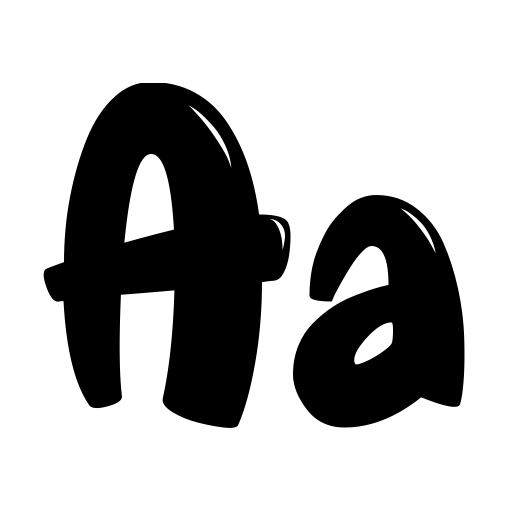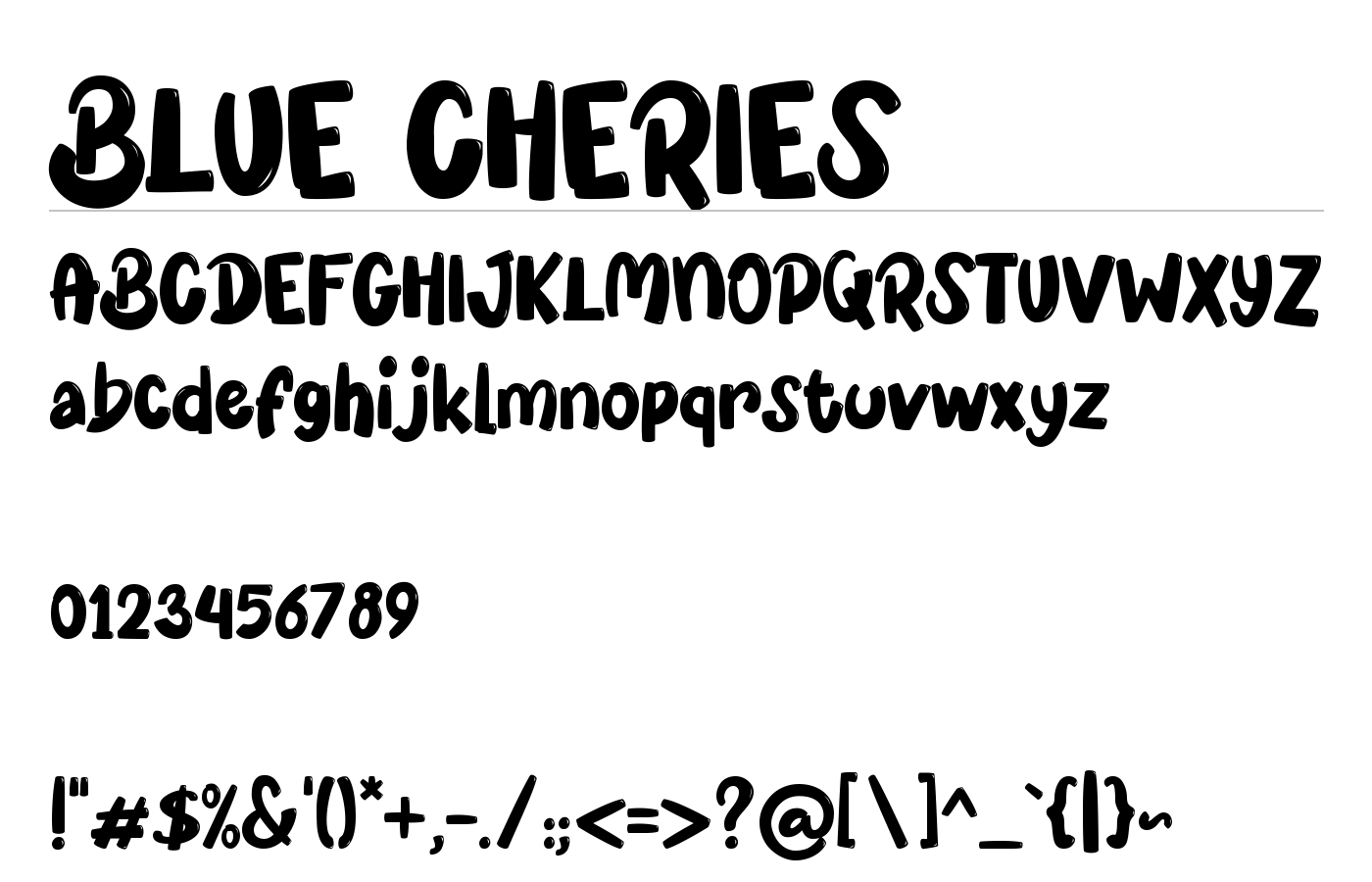
BLUE CHERIES is a playful and bold handwritten-style sans serif font with a chunky weight and rounded edges that give it a friendly, casual feel. Its uneven, whimsical letterforms and lively curves make it perfect for fun, informal designs like children’s books, quirky branding, and attention-grabbing headlines. This font works best where a lighthearted, approachable tone is desired, adding personality and charm to your creative projects.
BLUE CHERIES Font
About BLUE CHERIES Font